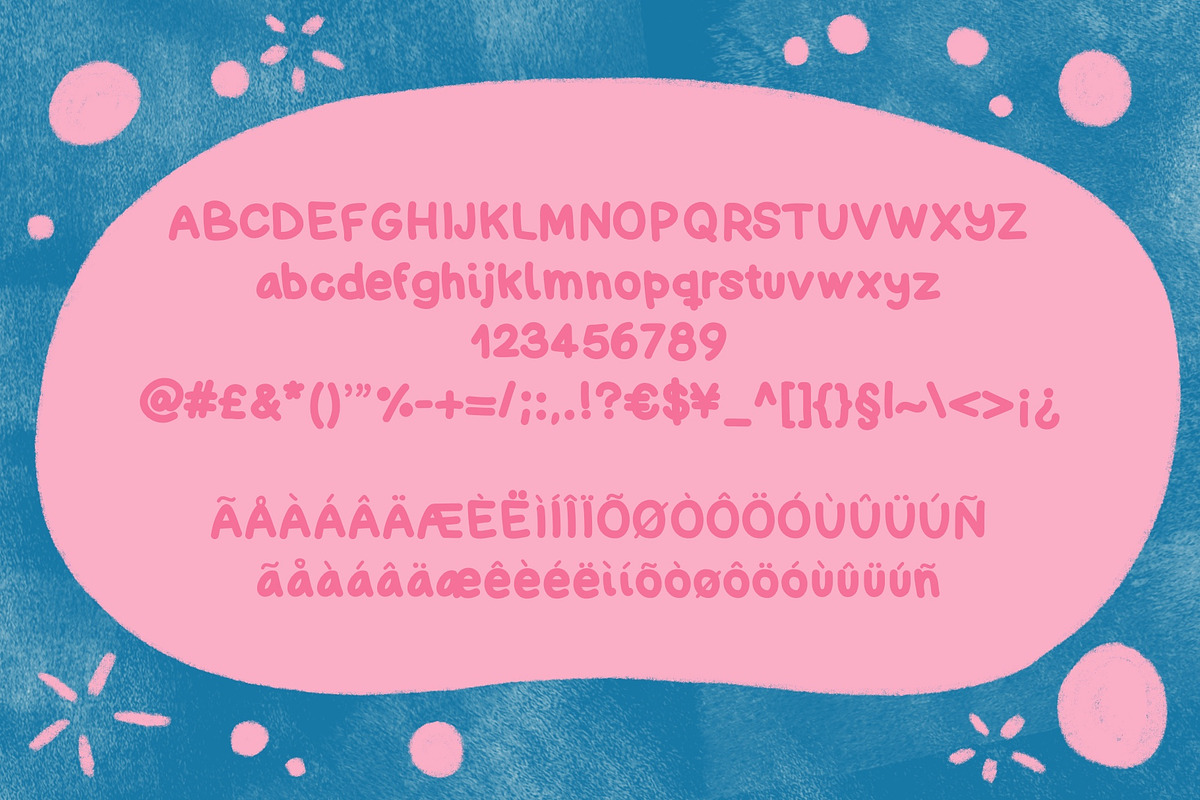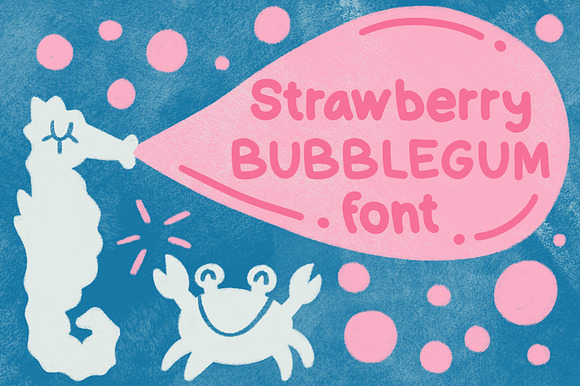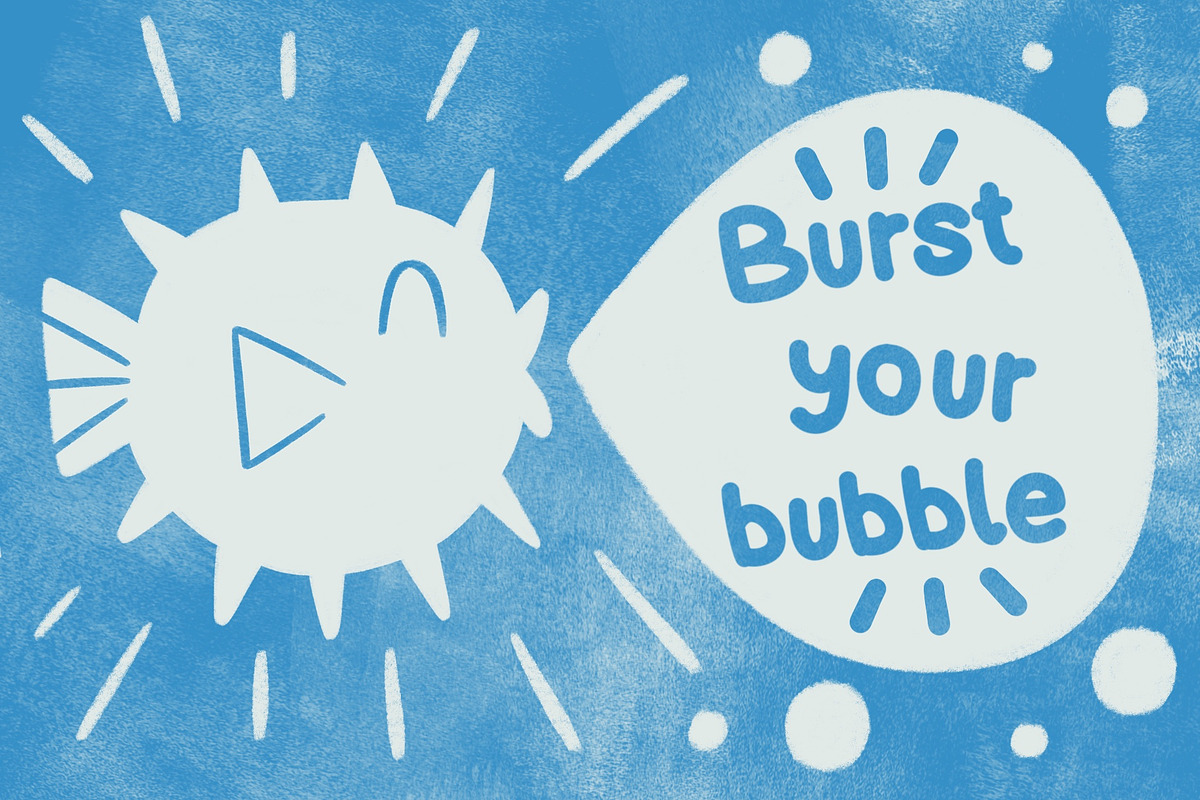
Strawberry Bubblegum font
Strawberry Bubblegum font is ideal for fun and quirky projects. You can incorporate it to your designs and illustration and add text in a fresh style.
Why Strawberry Bubblegum font is worth a look
Strawberry Bubblegum font by Natalia Gonzalez fits naturally into Branding, posters, packaging, typography.